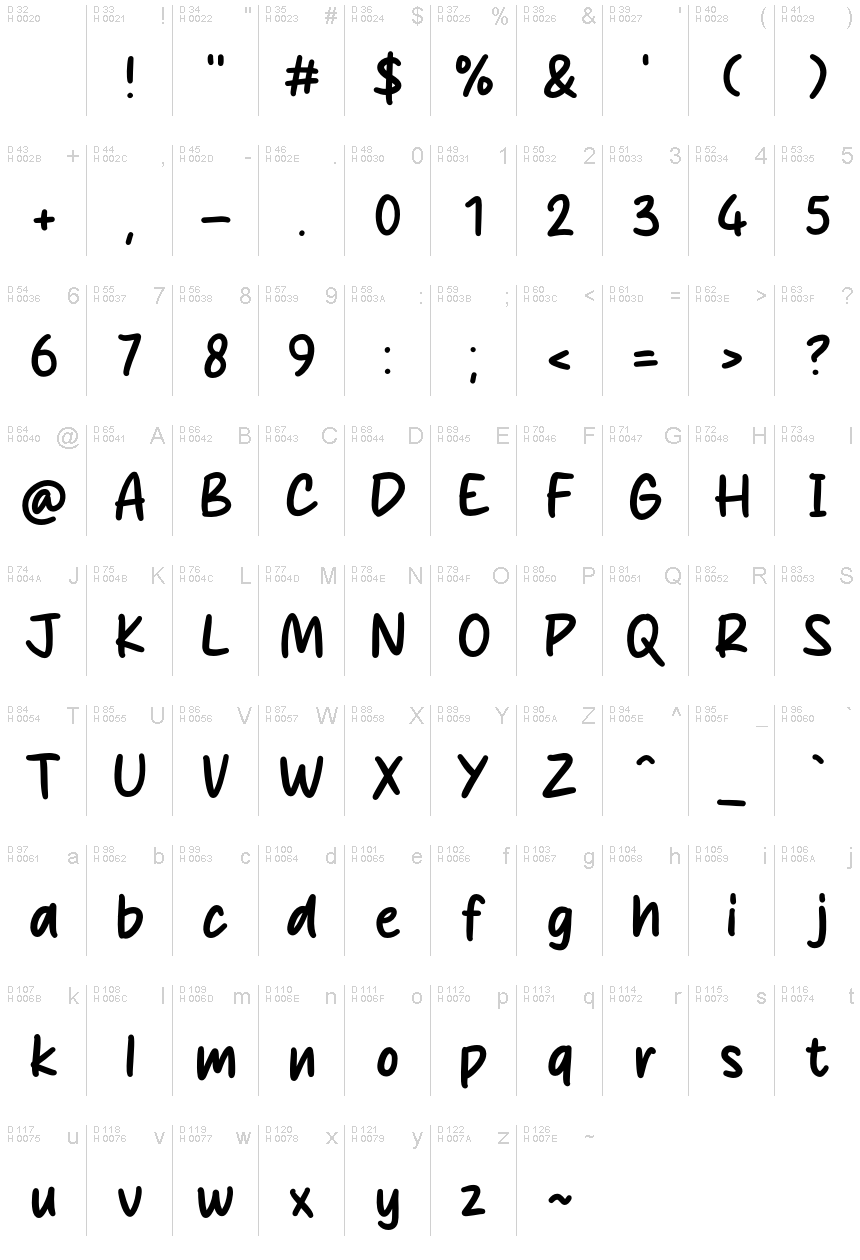
Orleans City
Orleans City font by MJType is a free delightful handwritten font, embodying playfulness and informality. With its casual, rounded shapes, this typeface exudes friendliness and accessibility. It’s the perfect choice for projects needing a light-hearted yet intimate touch, bringing an element of fun to your work.
Explore Orleans City's versatile applications in personalized notes, invitations, children’s books, fun logos, event posters, greeting cards, social media graphics, branding projects, website headers and playful packaging.